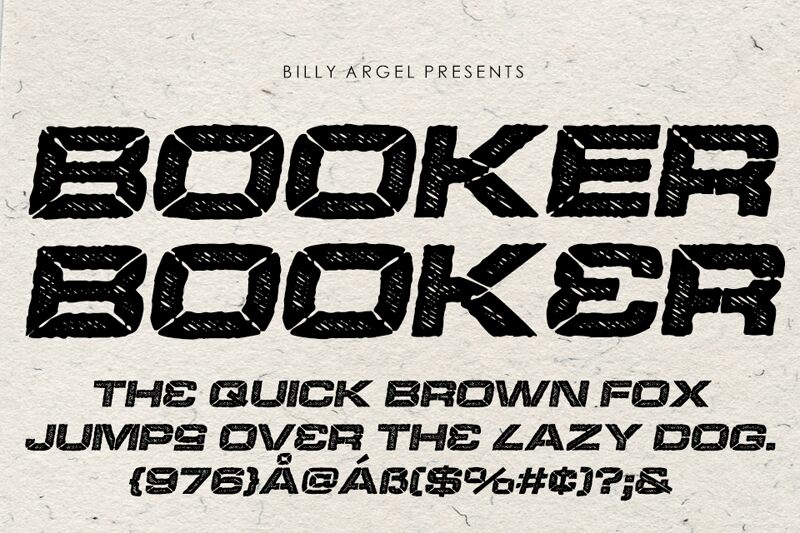
BOOKER ITALIC PERSONAL USE Bold Italic
Booker Bold Italic, designed by Billy Argel, is a wide, bold and eroded display font. It's perfect for giving an edgy and rustic feel to projects such as branding, logos and apparel designs.